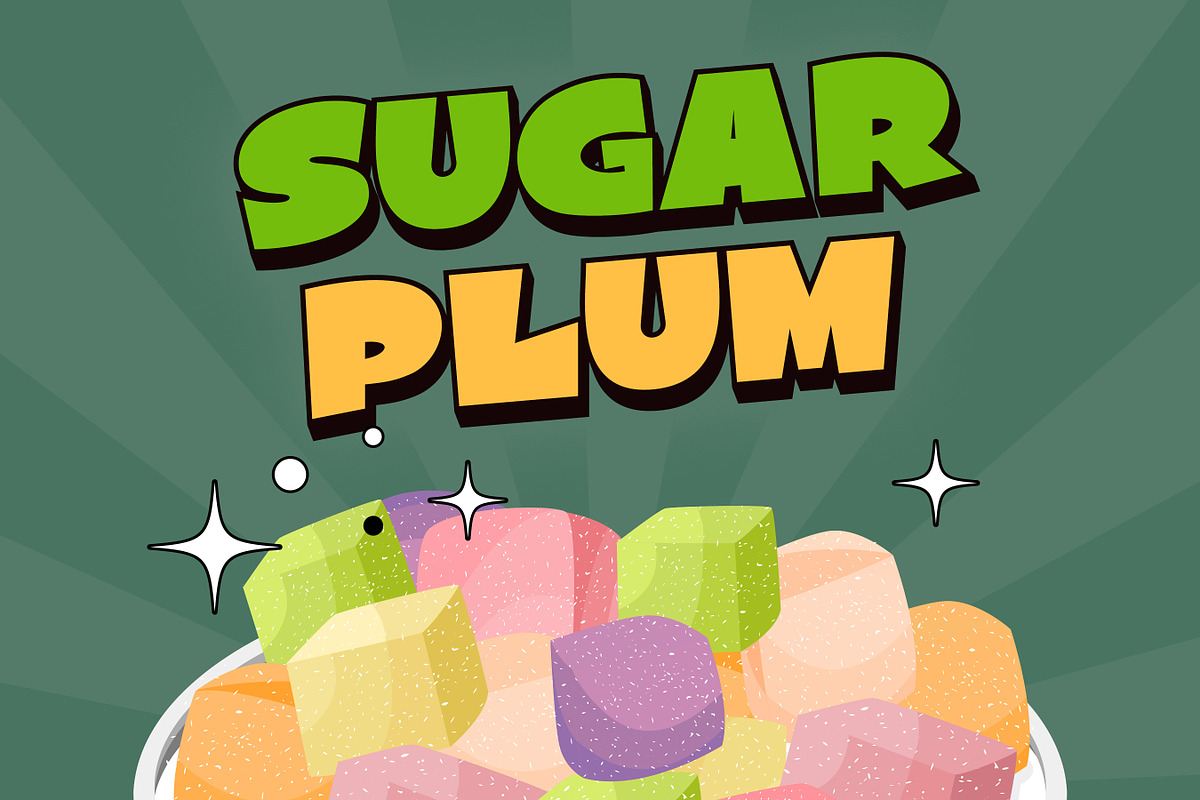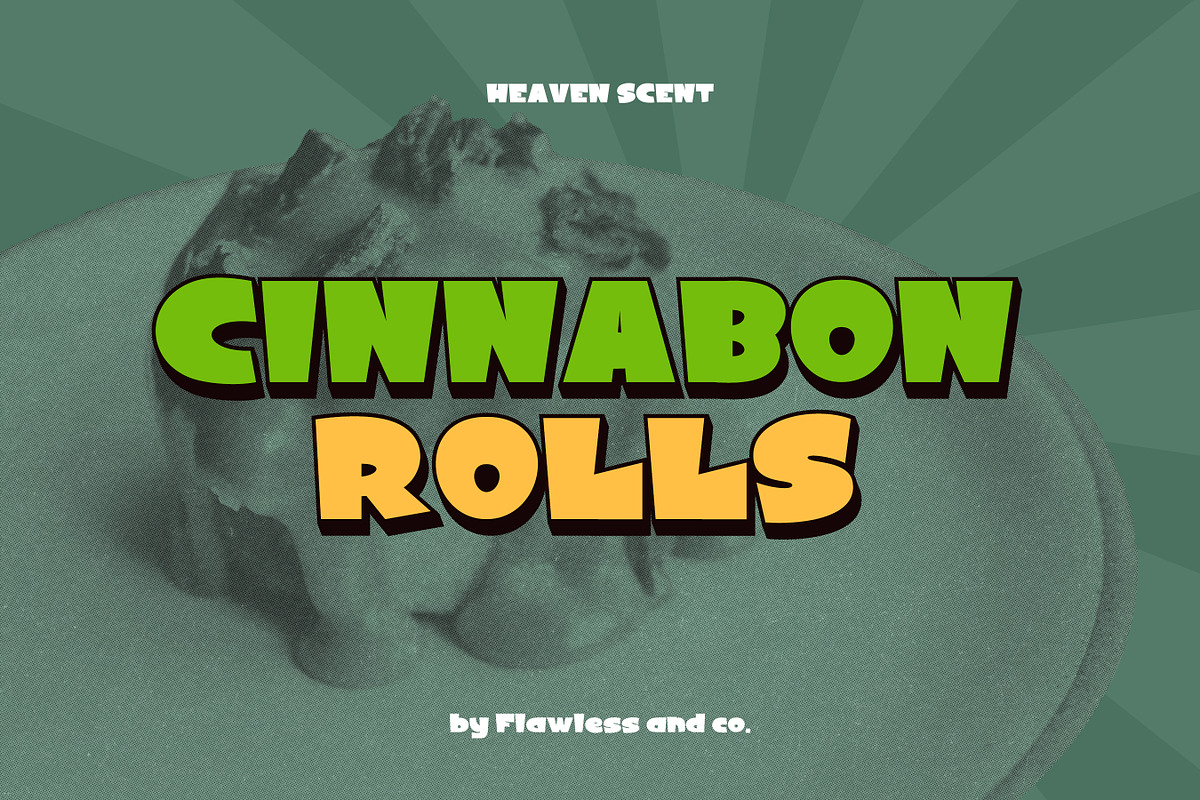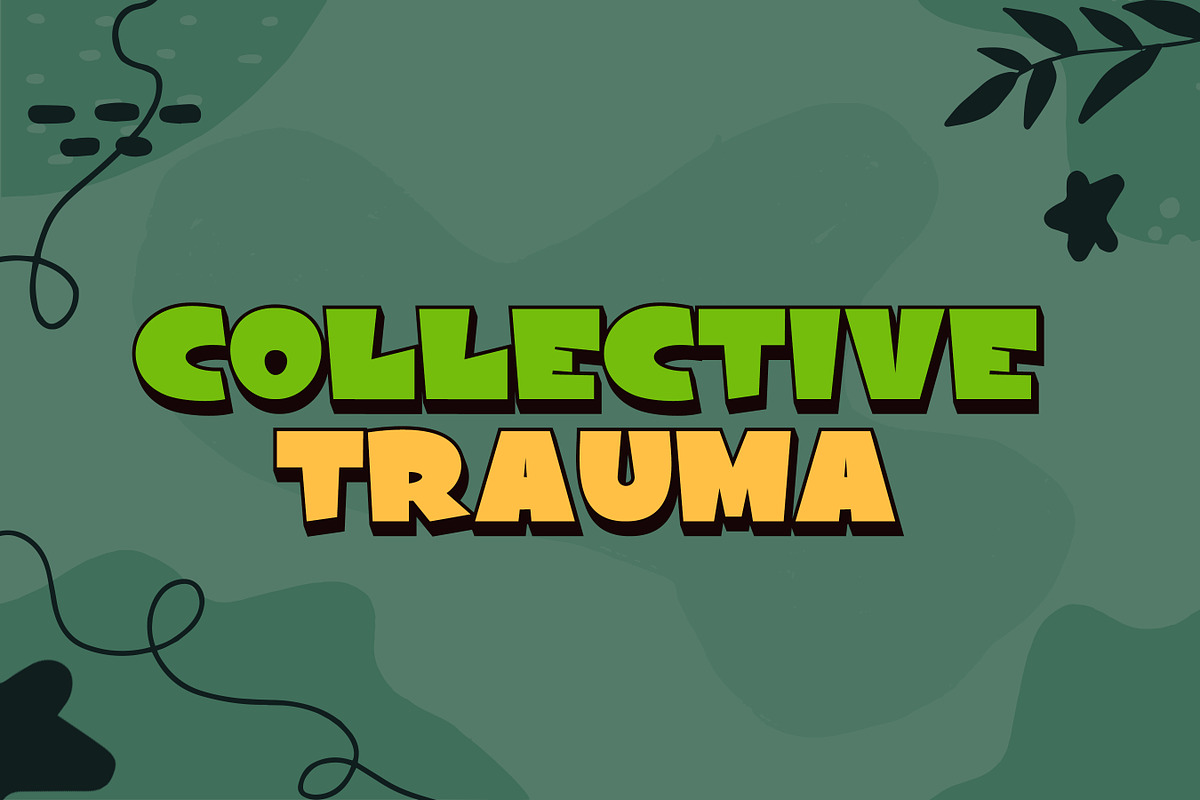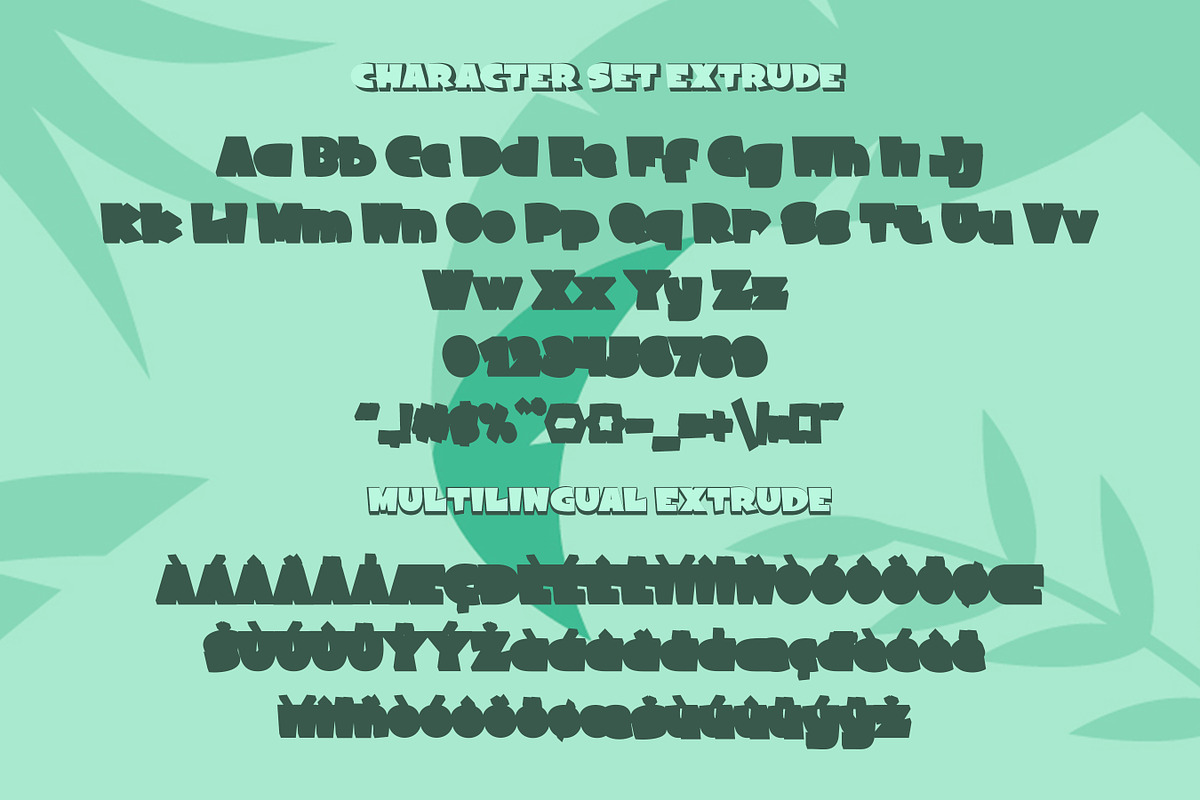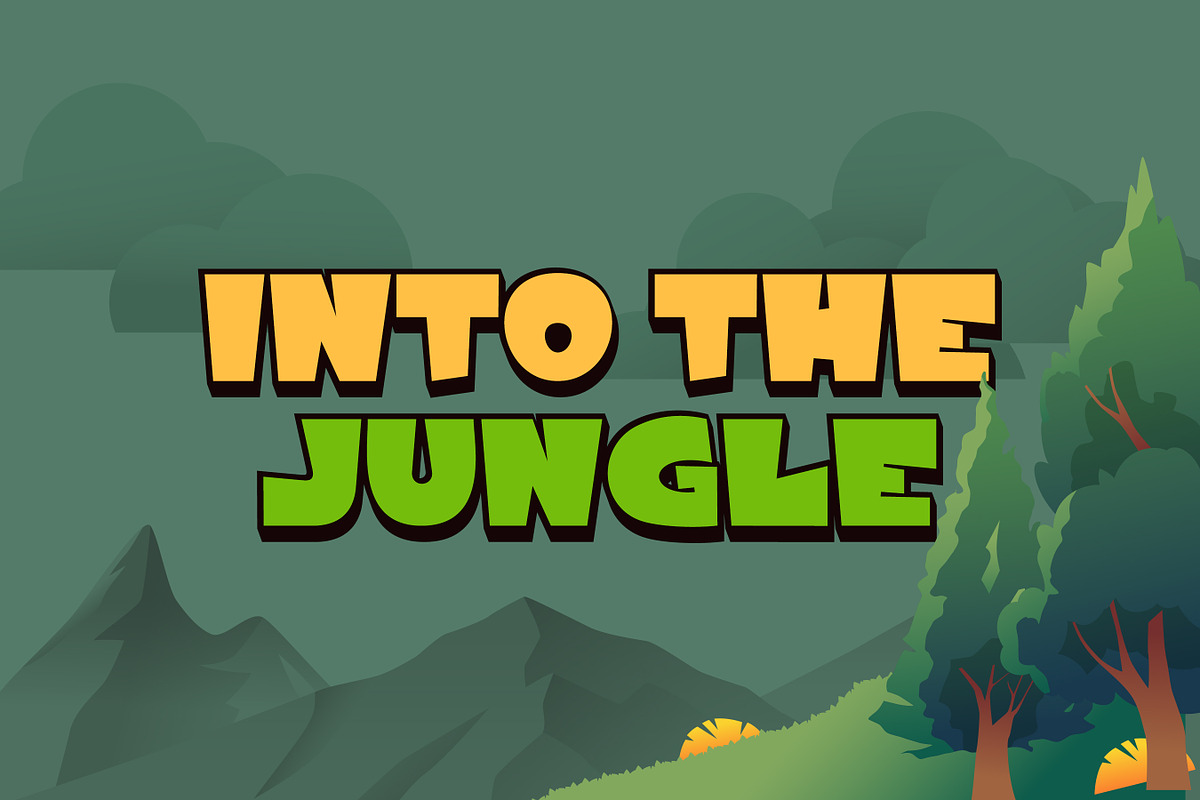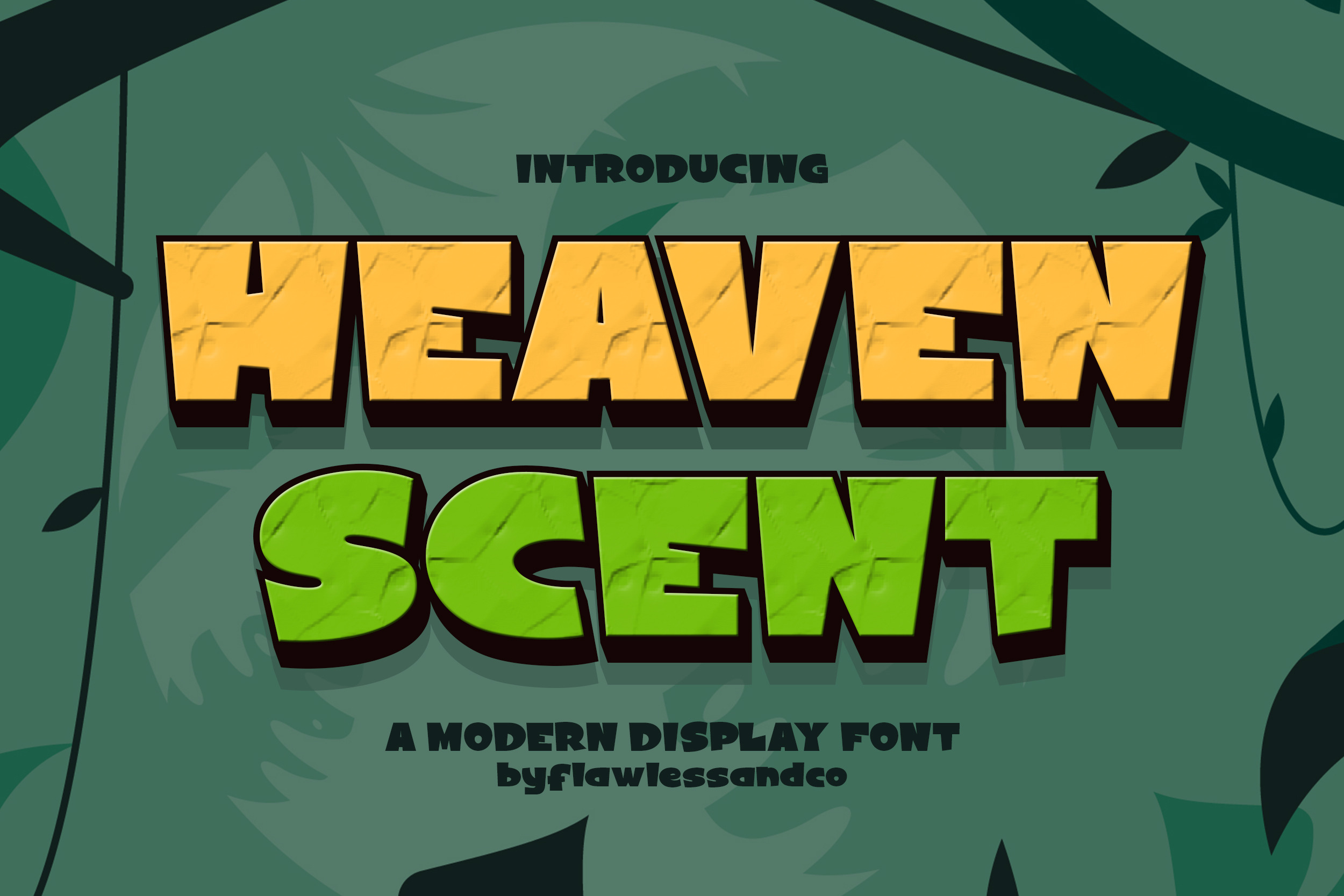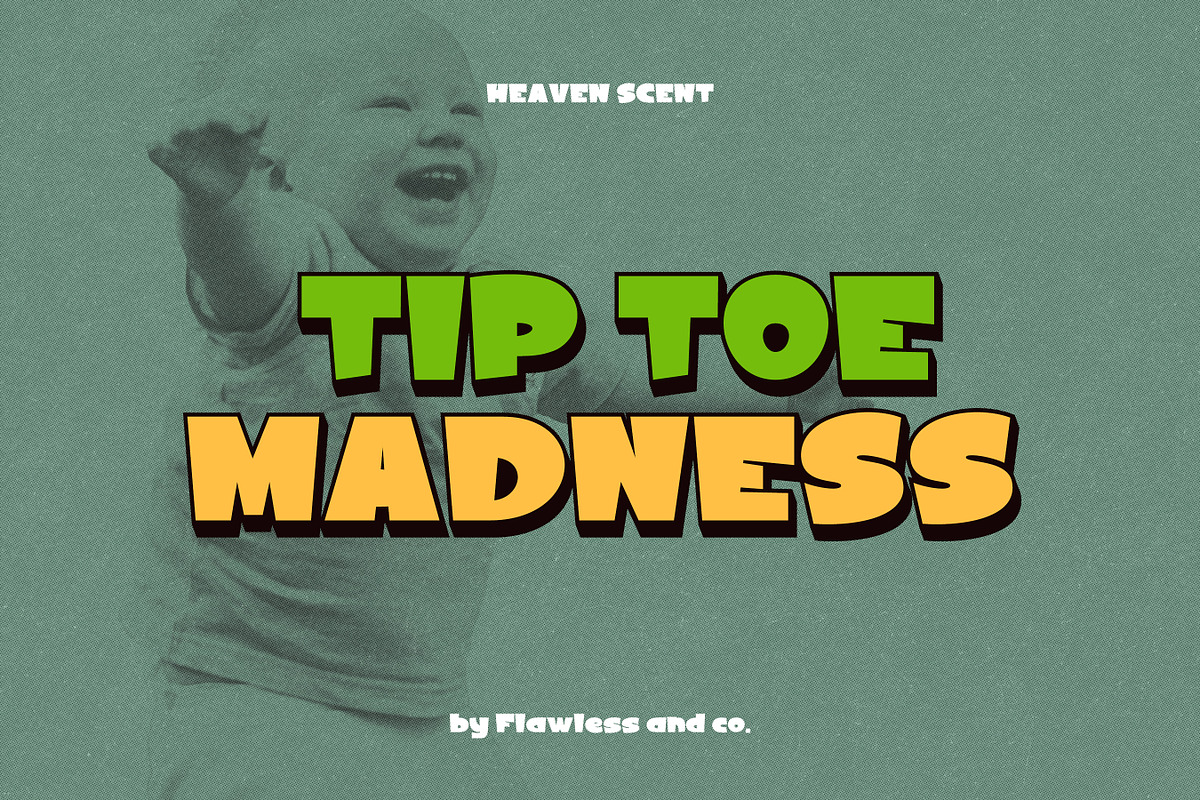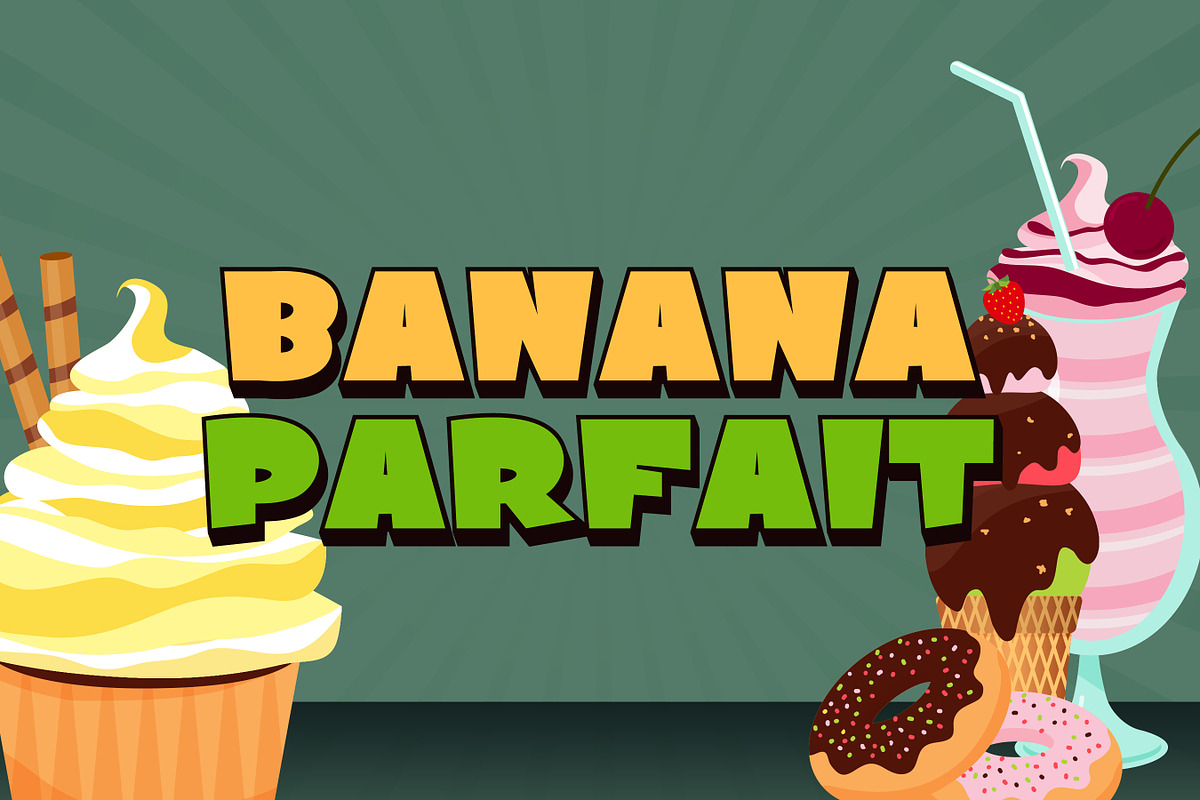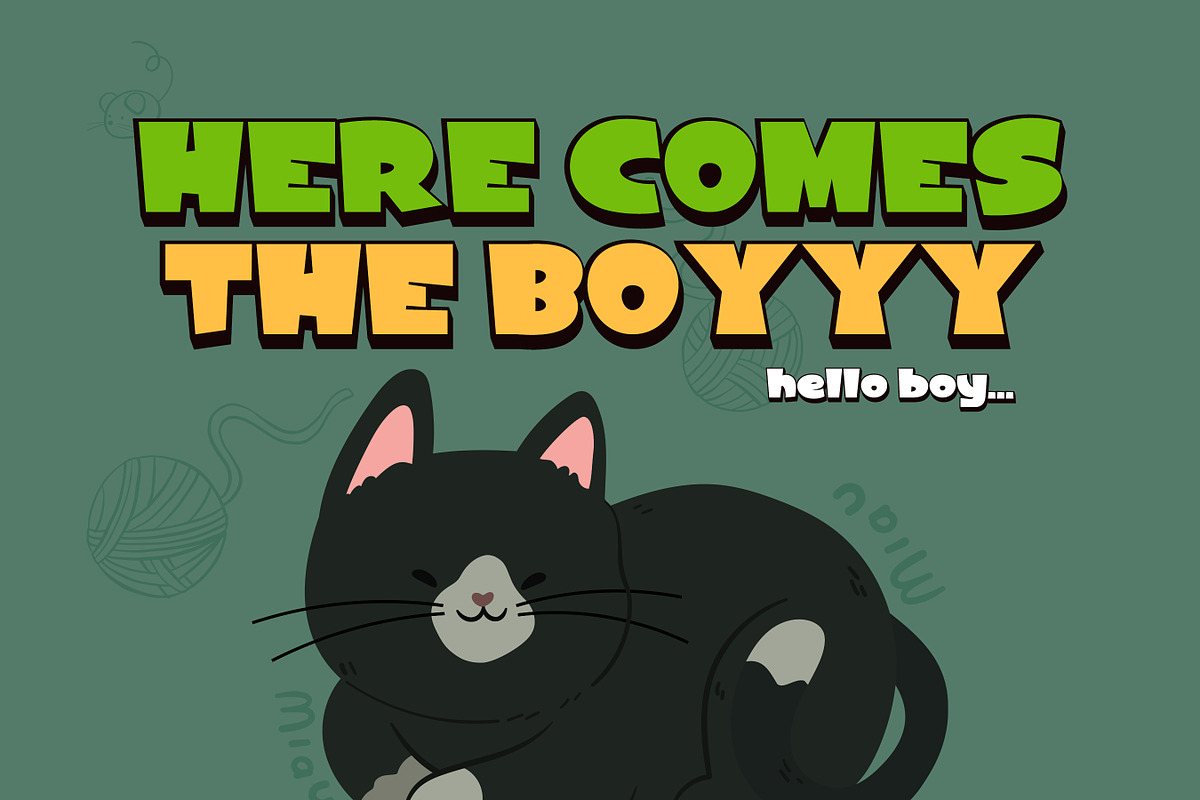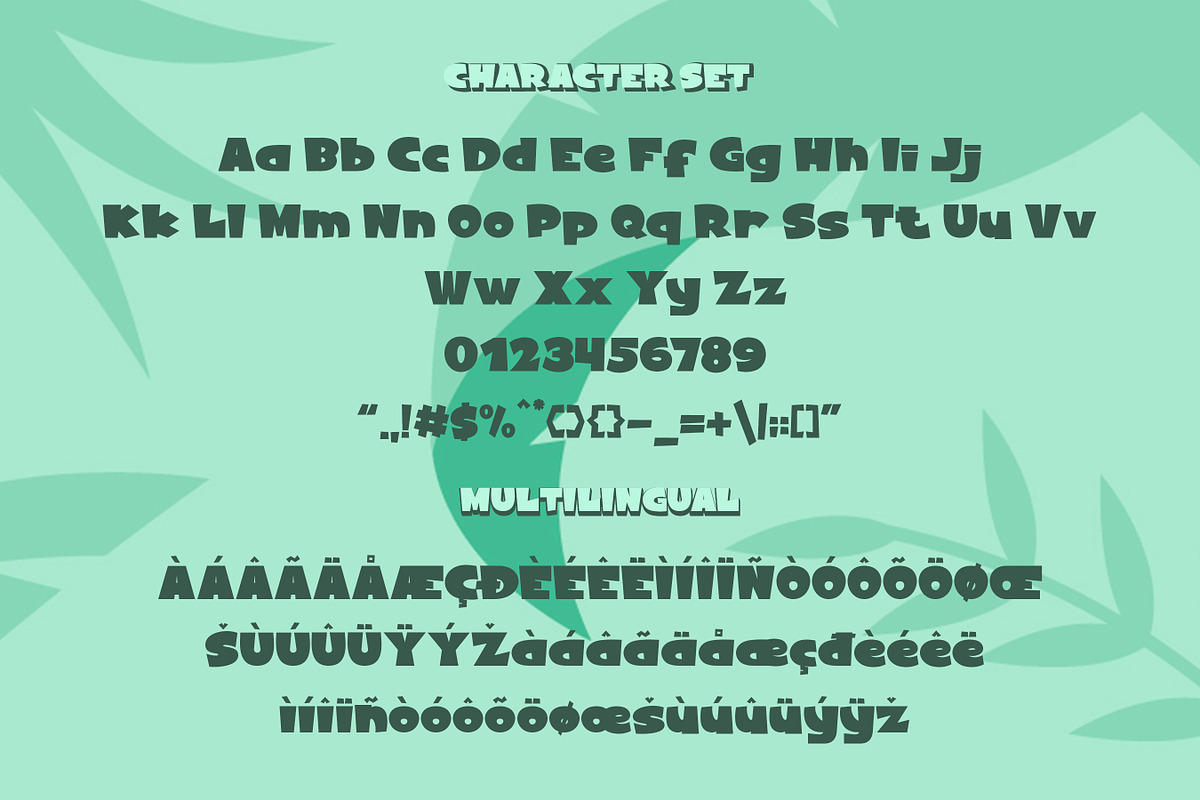
Heaven Scent - Modern Display Font
Introducing "Heaven Scent" - A Modern Display Font. Dive into the captivating world of "Heaven Scent," a modern display font that adds a delightful twist to your design projects. With its fresh and vibrant personality, this font effortlessly combines contemporary flair with comic-inspired charm, making it a versatile choice for a range of creative endeavors.